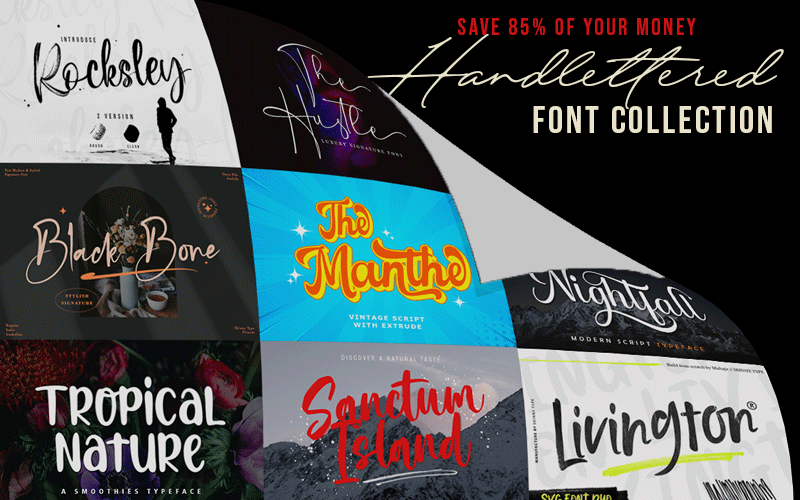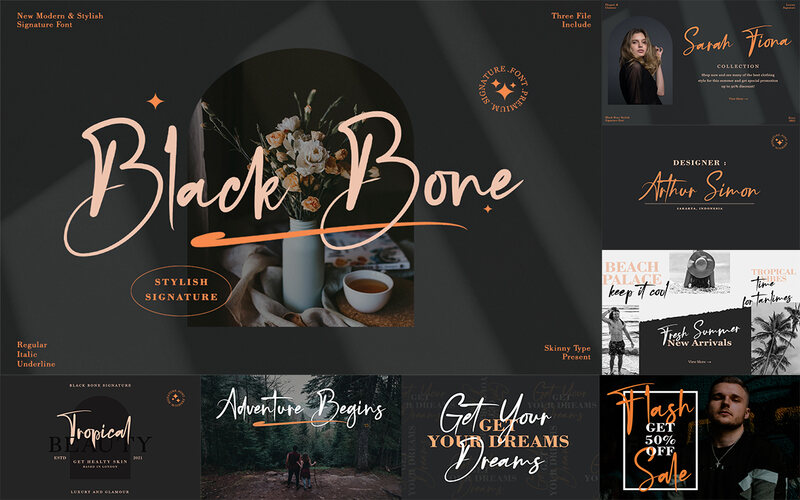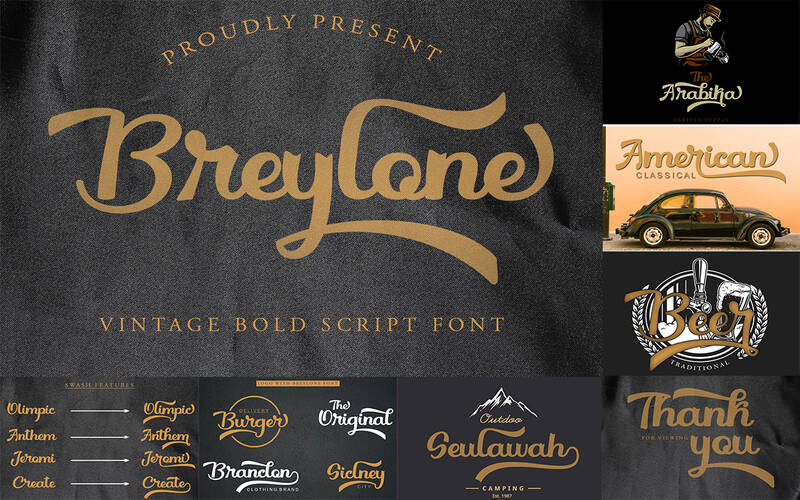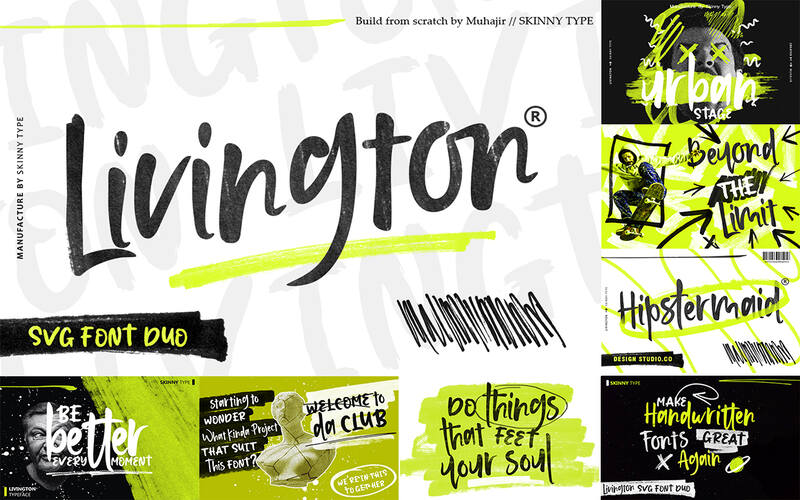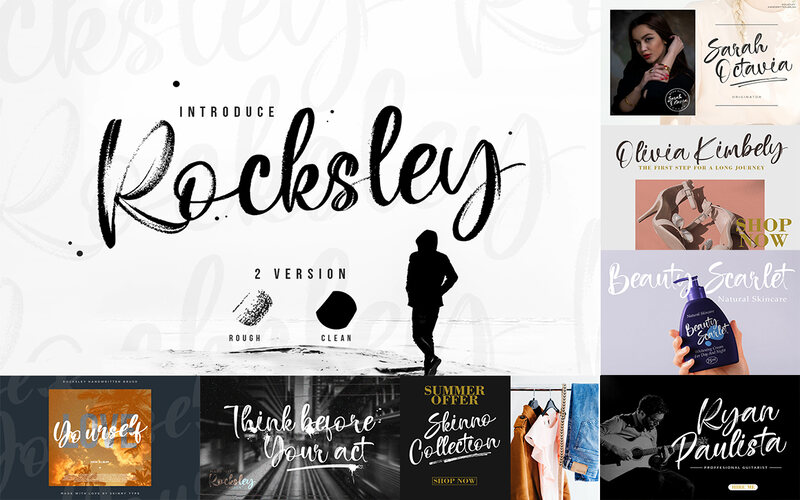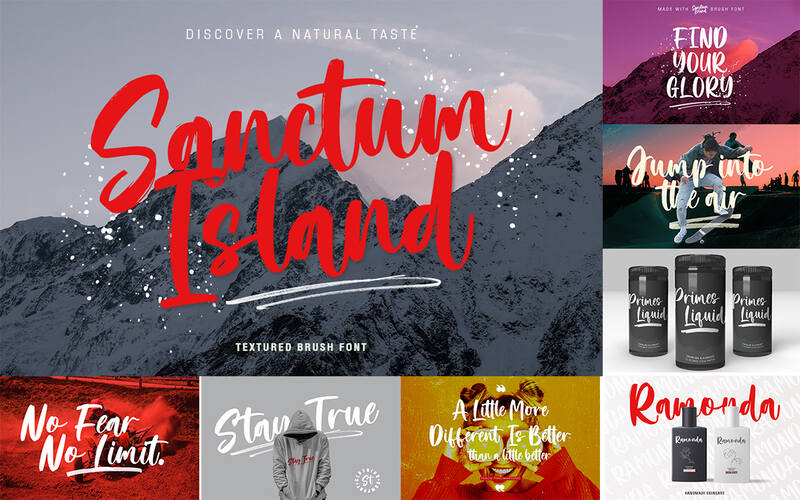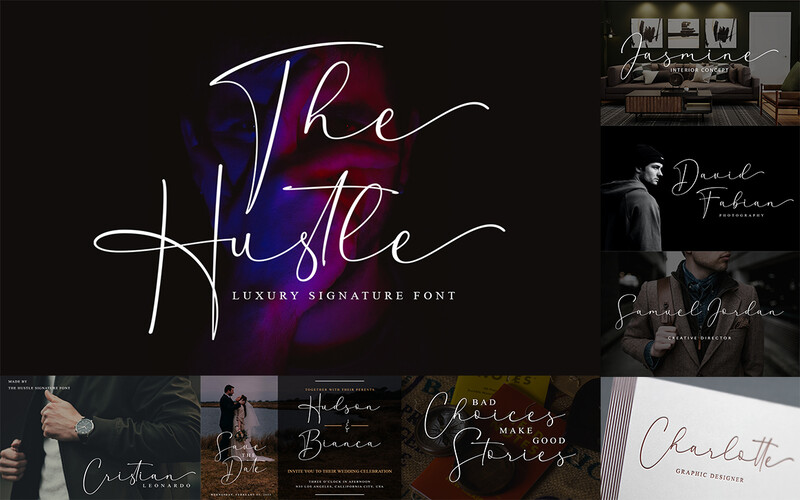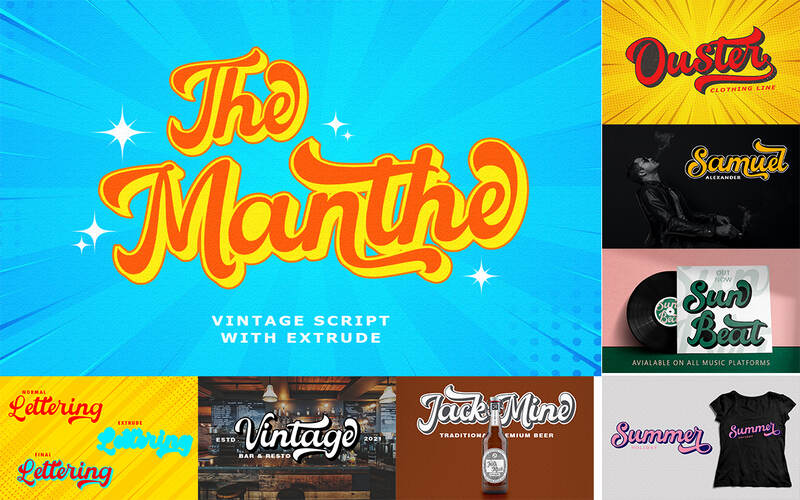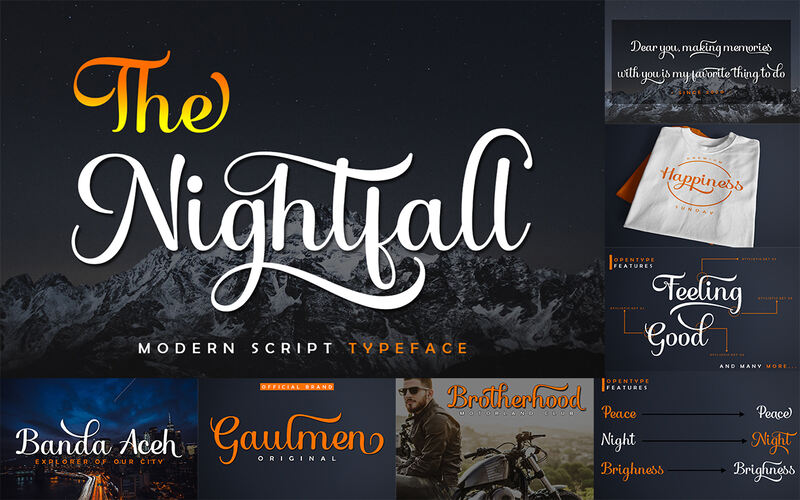
Are you tired of using the same generic hand lettered fonts in your designs? Do you want to add elegance, fun, & sophistication to your work? Then, consider –
The Hand Lettered Fonts Collection
This font collection includes various fonts for every style and occasion, from cute and whimsical handwritten fonts to premium calligraphy and signature fonts.
This bundle also includes brush lettering, hand-lettering, many other styles, and hundreds of glyphs, including alternatives, ligatures, and sweeps.
Features Of This Creative Fonts Bundle:
The Hand Lettered Fonts Collection Bundle Includes:
The Nightfall – Modern Script Typeface
Black Bone – Stylish Signature Font
The Hustle – Luxury Signature Font
Livington – SVG Font Duo
Sanctum Island – Textured Brush Font
Rocksley – Rough & Clean Font
The Manthe – Vintage Script With Extrude
Breylone – Vintage Bold Script Font
Tropical Nature – A Smoothies Typeface